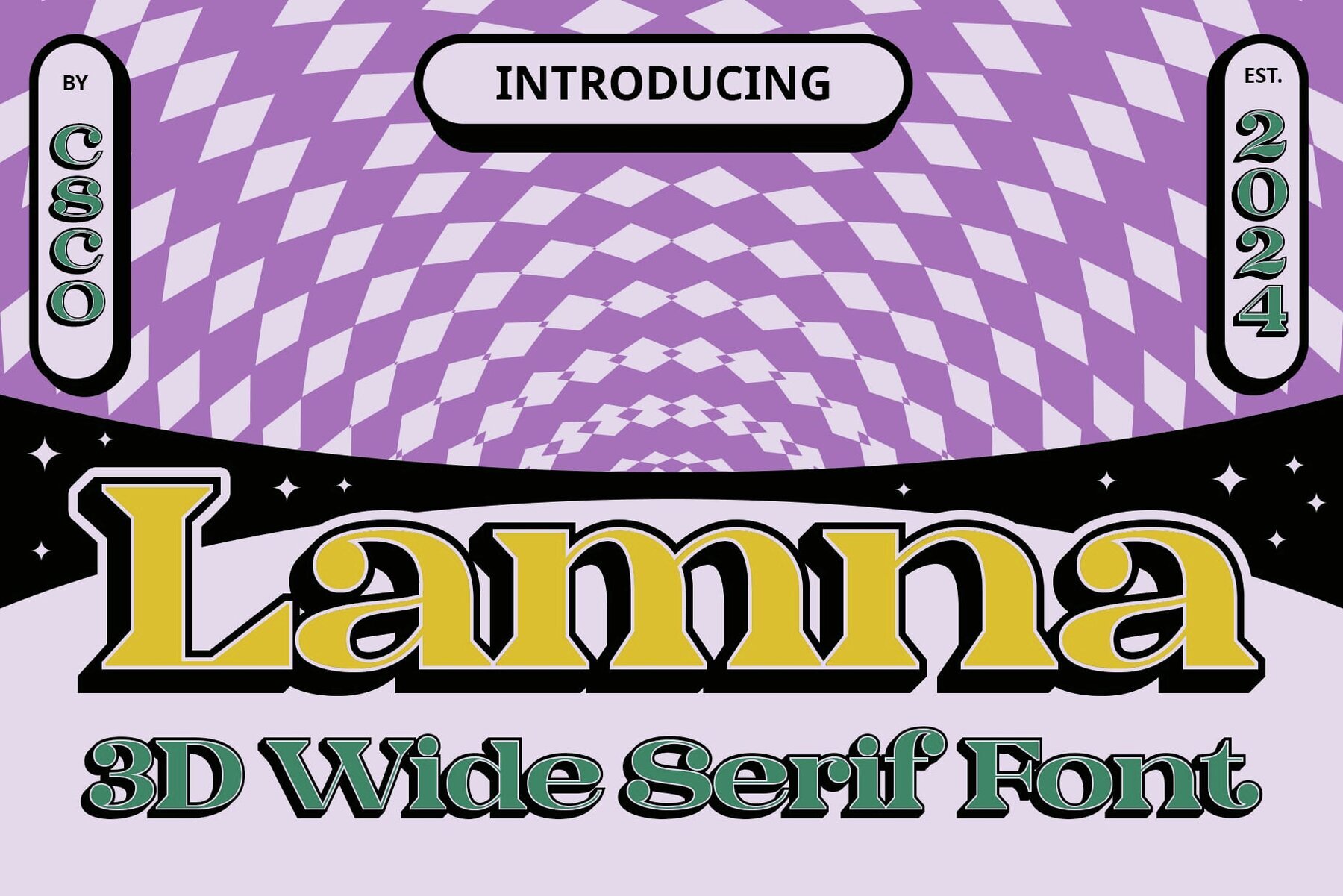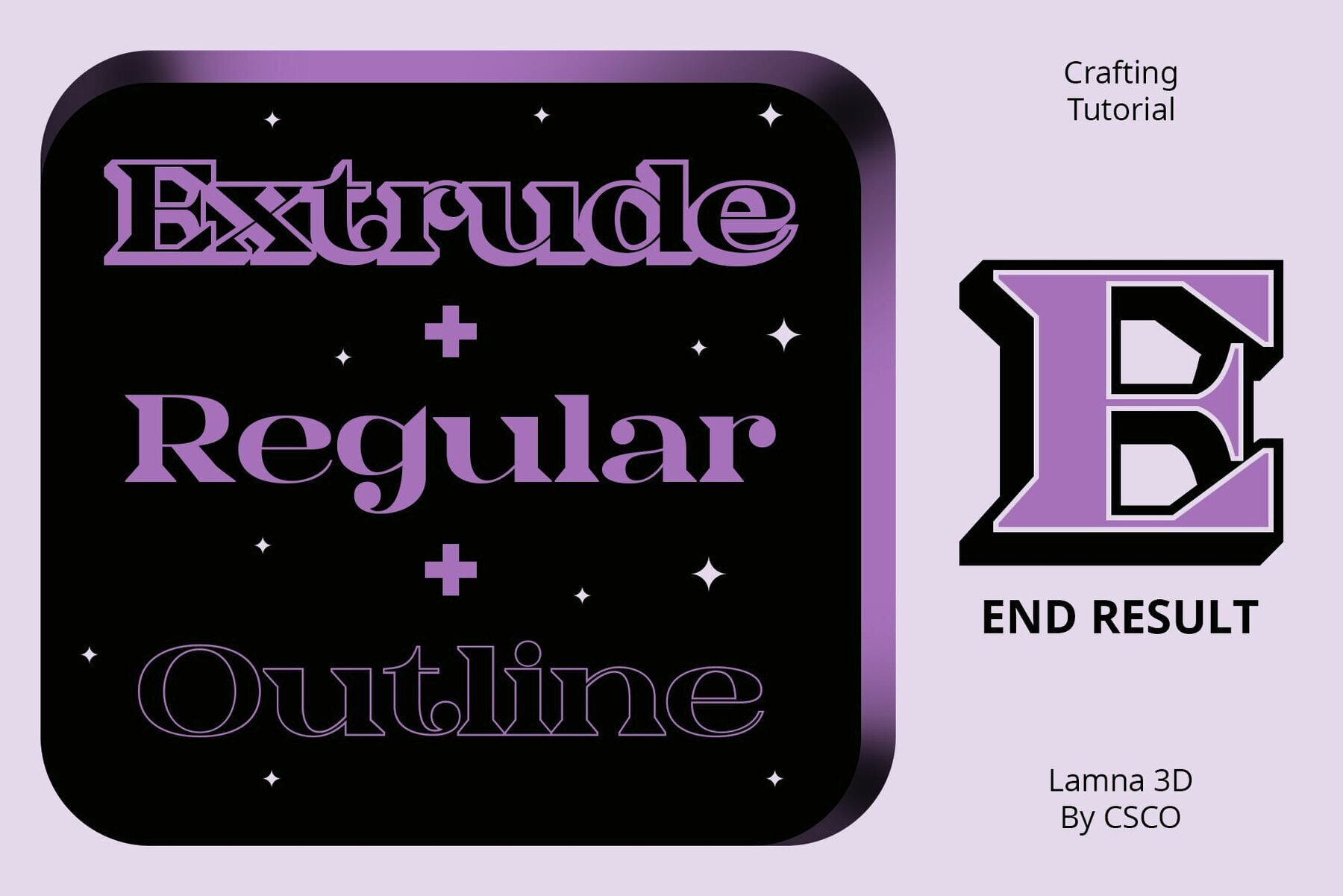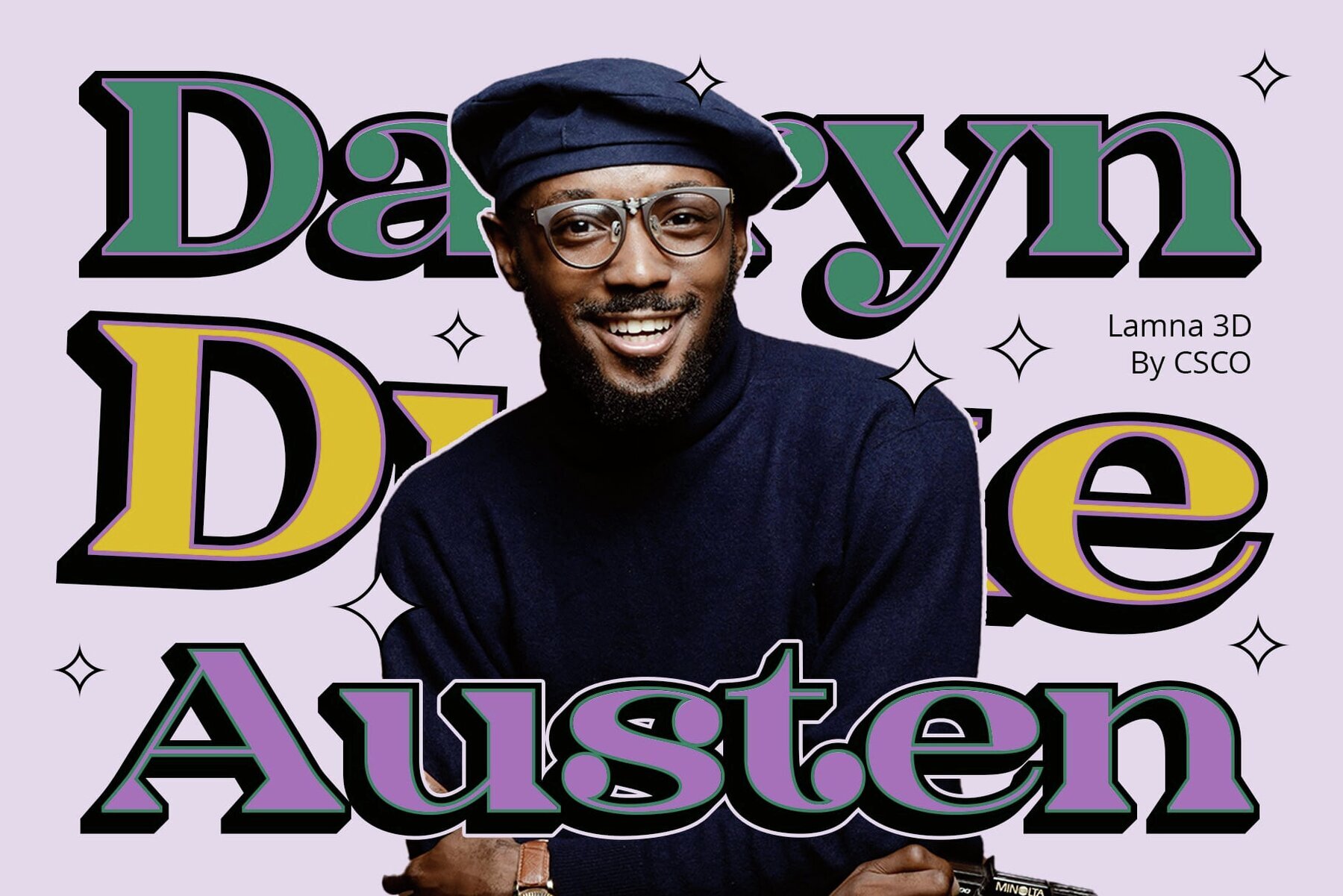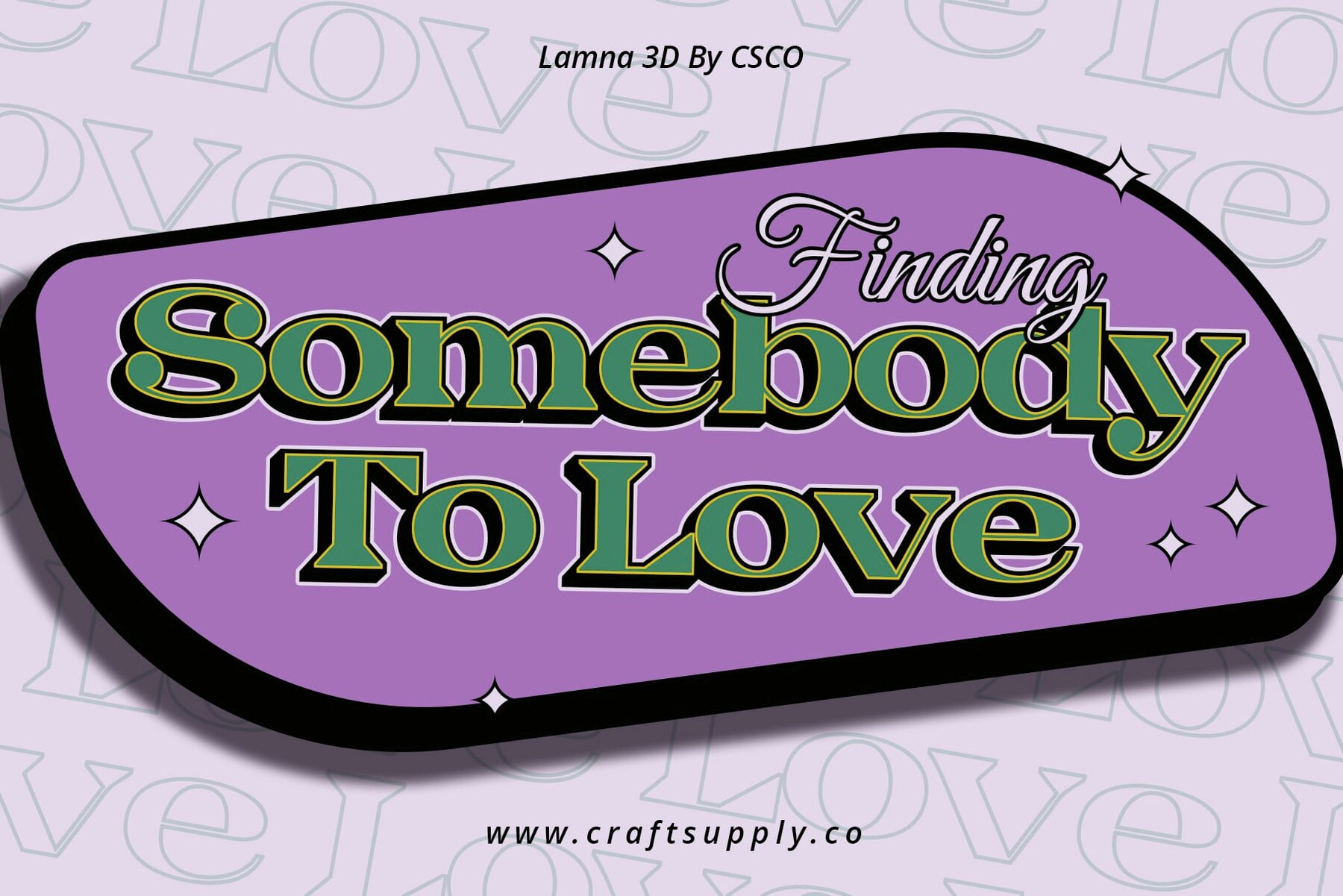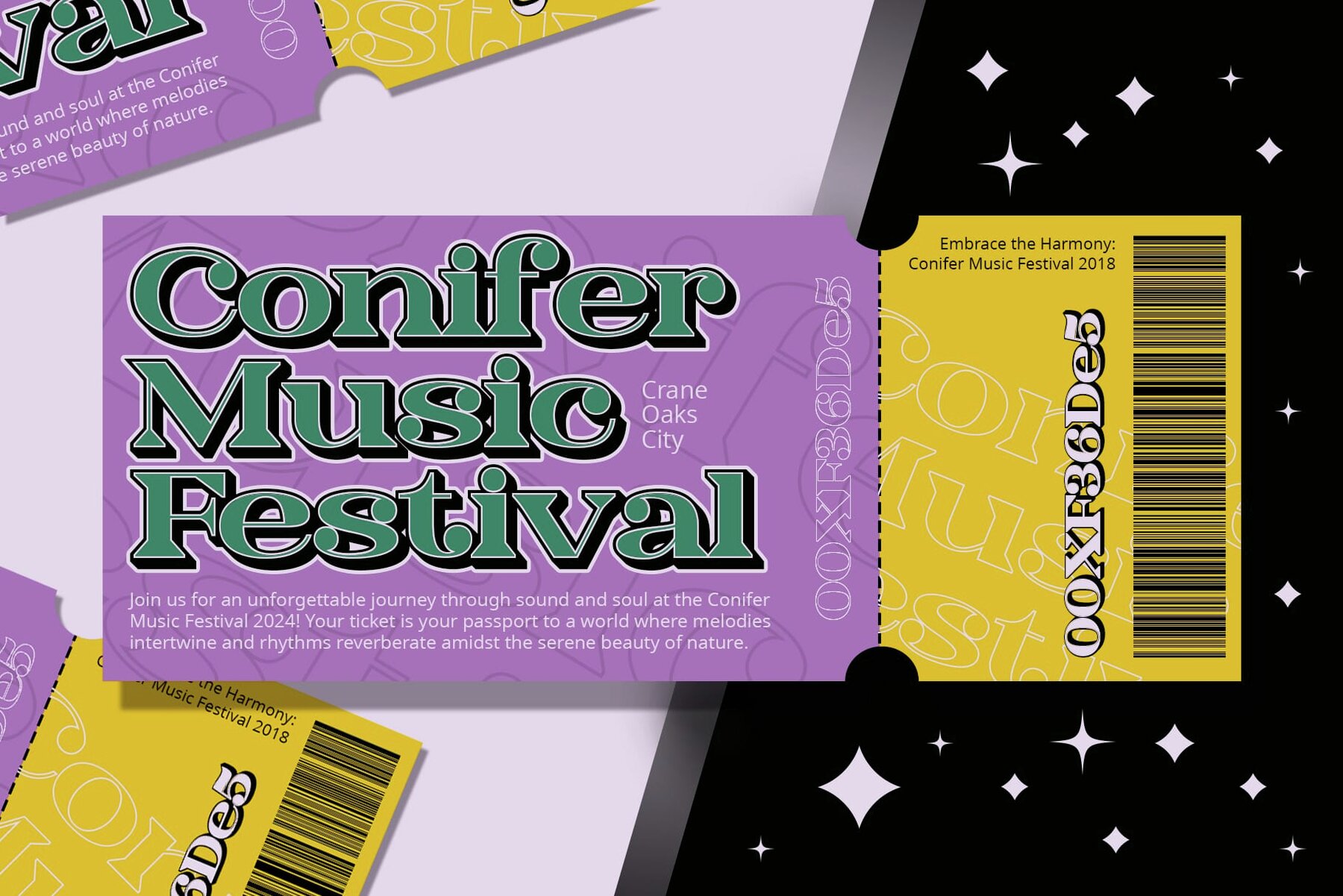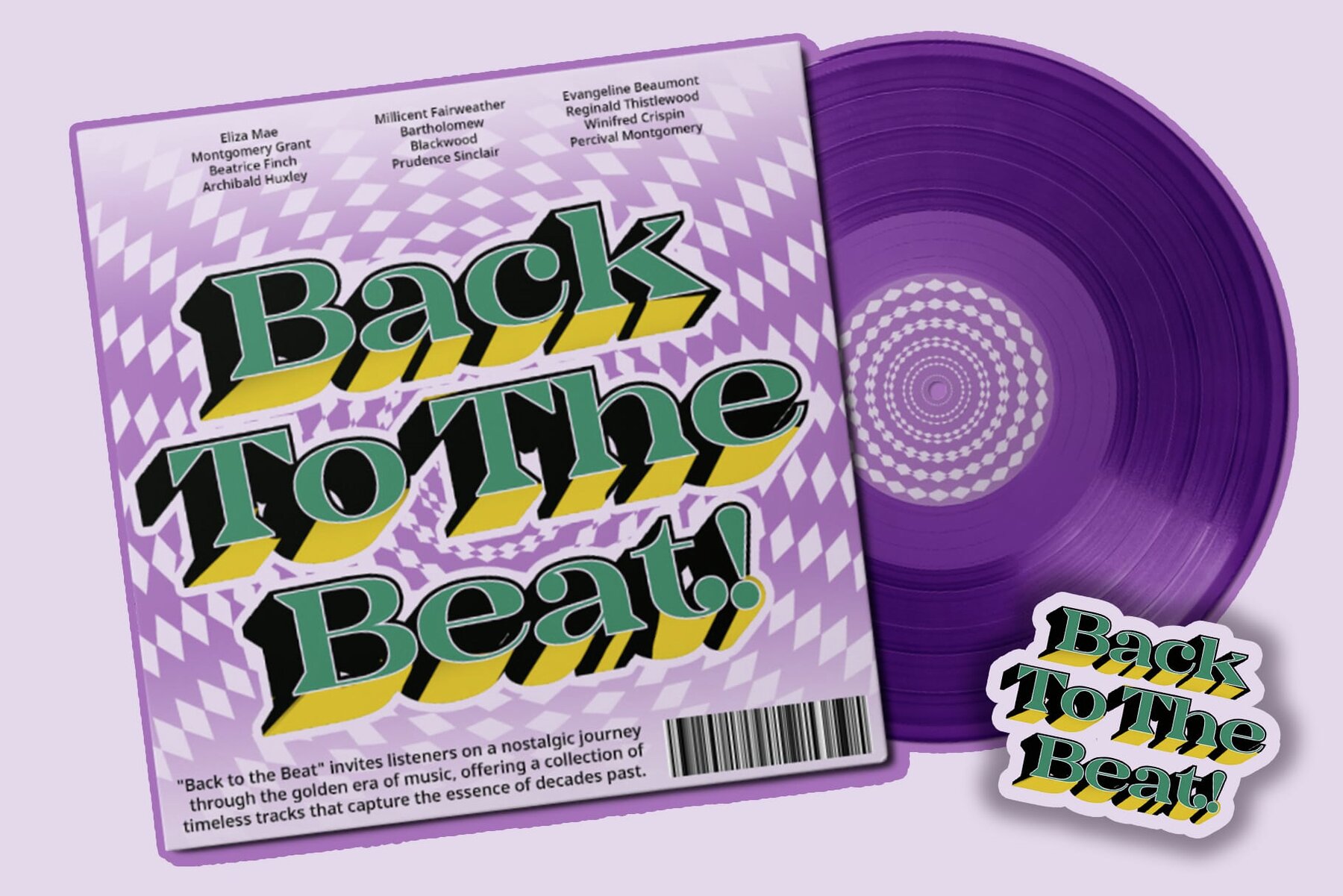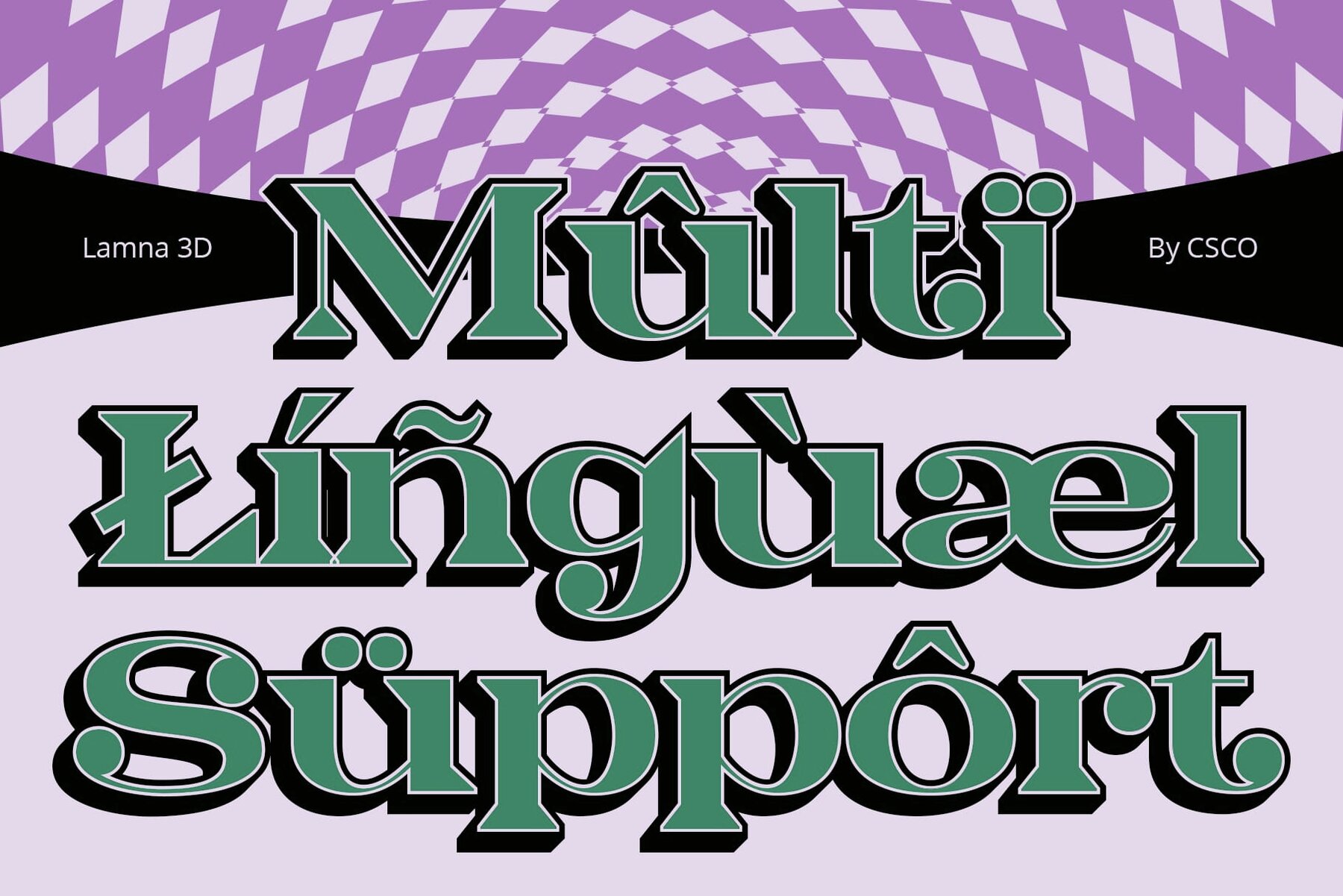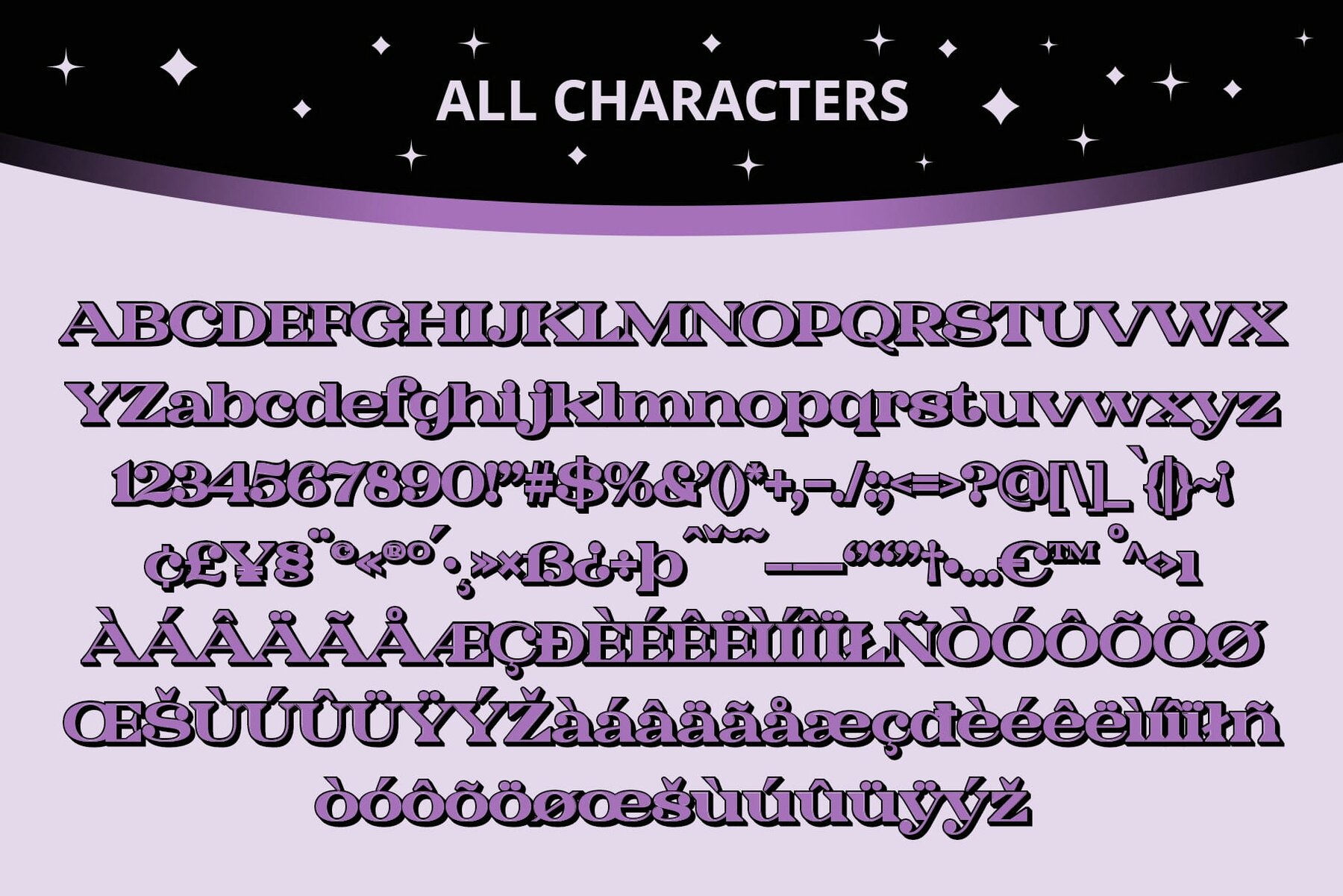
Lamna 3D Font
Lamna 3D by Craft Supply Co.
Lamna 3D features assertive wedge serifs that command attention. Each character exudes strength and confidence, making it ideal for impactful designs.
Enhanced with 3D effects, this font's wedges gain a dynamic and eye-catching appearance, perfect for headlines and branding. It excels in both print and digital media, adding depth and visual interest to any project.
- Numerals & Punctuation (OpenType Standard)
- Accents (Multilingual characters)